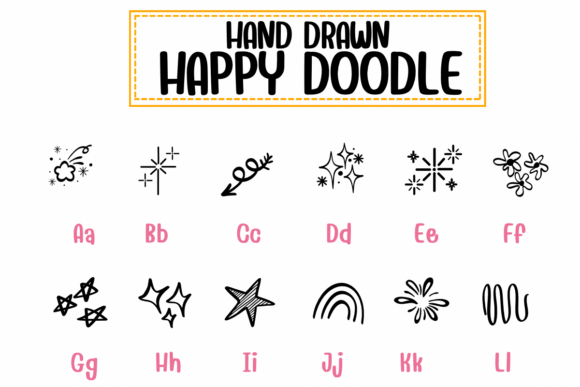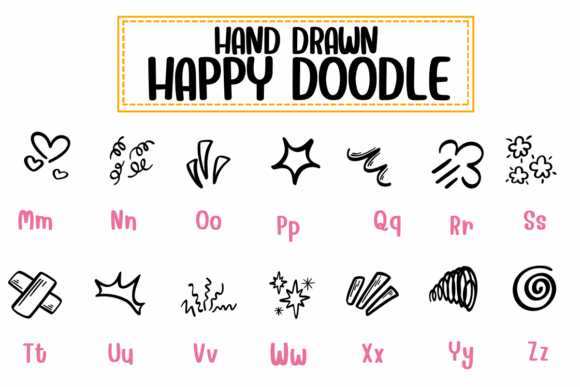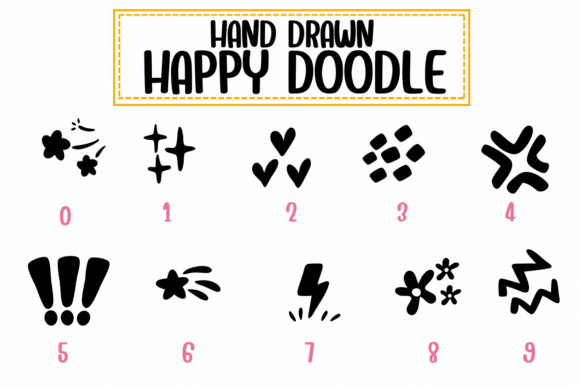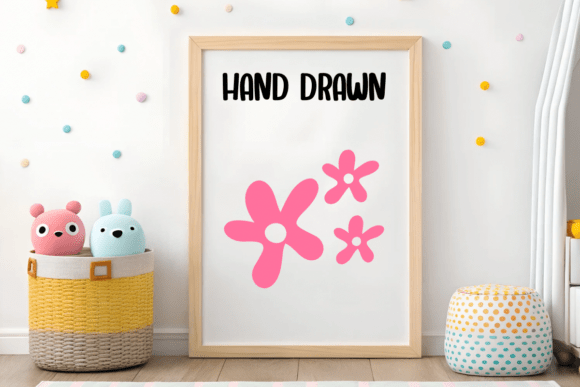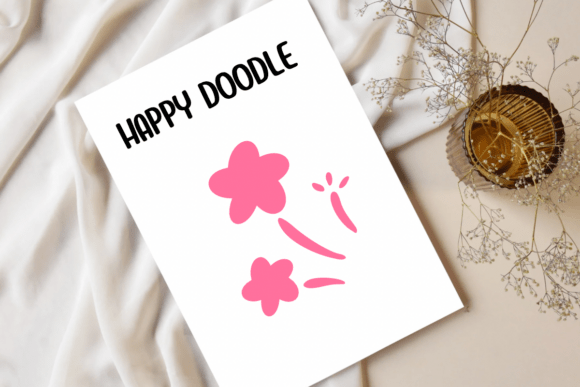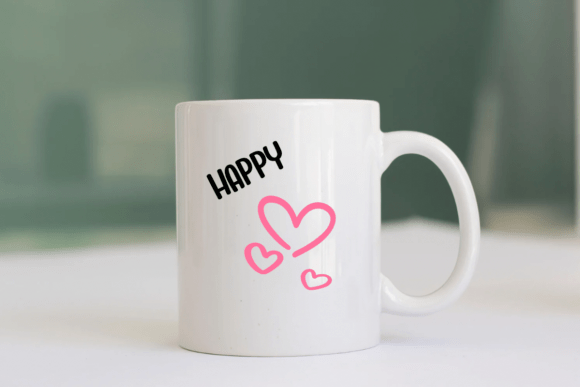
Introduction to Hand Drawn Happy Doodle Font
Have you ever found yourself in the middle of a creative project, searching for that perfect element to give it a boost of personality? Maybe you’re designing a lesson plan for your students, crafting a custom birthday card, or planning a new layout for your bullet journal. Whatever it is, you know that the right design can make all the difference in bringing your vision to life. For designers like you, the Hand Drawn Happy Doodle Font is a game-changer.
With over 60 whimsical doodles at your fingertips, this high-quality dingbats font is packed with sparkles, stars, hearts, arrows, and squiggles that are sure to add a splash of happy creativity to any project. Whether you’re working with a transparent background or need a design resource for a specific theme, the Hand Drawn Happy Doodle Font is the perfect addition to your toolkit.
Key Features of Hand Drawn Happy Doodle Font
- High-quality, hand-drawn design perfect for creative projects requiring a unique touch.
- Transparent background option for easy customization and seamless integration into various design elements.
- Designed as a design resource for creating visually appealing and engaging content, ideal for social media, posters, and more.
- Resolution: 300 DPI, ensuring crisp and clear display of the font in various sizes and applications.
Honest Review: Hand Drawn Happy Doodle Font
I recently stumbled upon the Hand Drawn Happy Doodle Font, and I’m excited to share my honest thoughts with you. This font is perfect for designers looking to add a personal touch to their creative project.
- High-quality design that’s both playful and professional
- Transparent background, making it easy to work with in any design environment
- Works well for a variety of design projects, from children’s books to social media graphics
- May not be suitable for formal or corporate projects due to its playful nature
- Some letters may be difficult to read in smaller font sizes
Overall, I’m impressed with the Hand Drawn Happy Doodle Font. It’s a fantastic design resource that’s perfect for designers looking to add a touch of whimsy to their work. While it may have some limitations, I think the benefits far outweigh the drawbacks.
Tips for Getting the Most Out of Hand Drawn Happy Doodle Font
Use the Hand Drawn Happy Doodle Font to add a touch of whimsy and personality to your design. Experiment with different font sizes and styles to create a unique look. Use the transparent background feature to make your text stand out and add a professional touch.
Common Use Cases for Hand Drawn Happy Doodle Font
The Hand Drawn Happy Doodle Font is perfect for creative projects such as birthday invitations, party decorations, and social media graphics. It’s also great for adding a personal touch to presentations and documents.